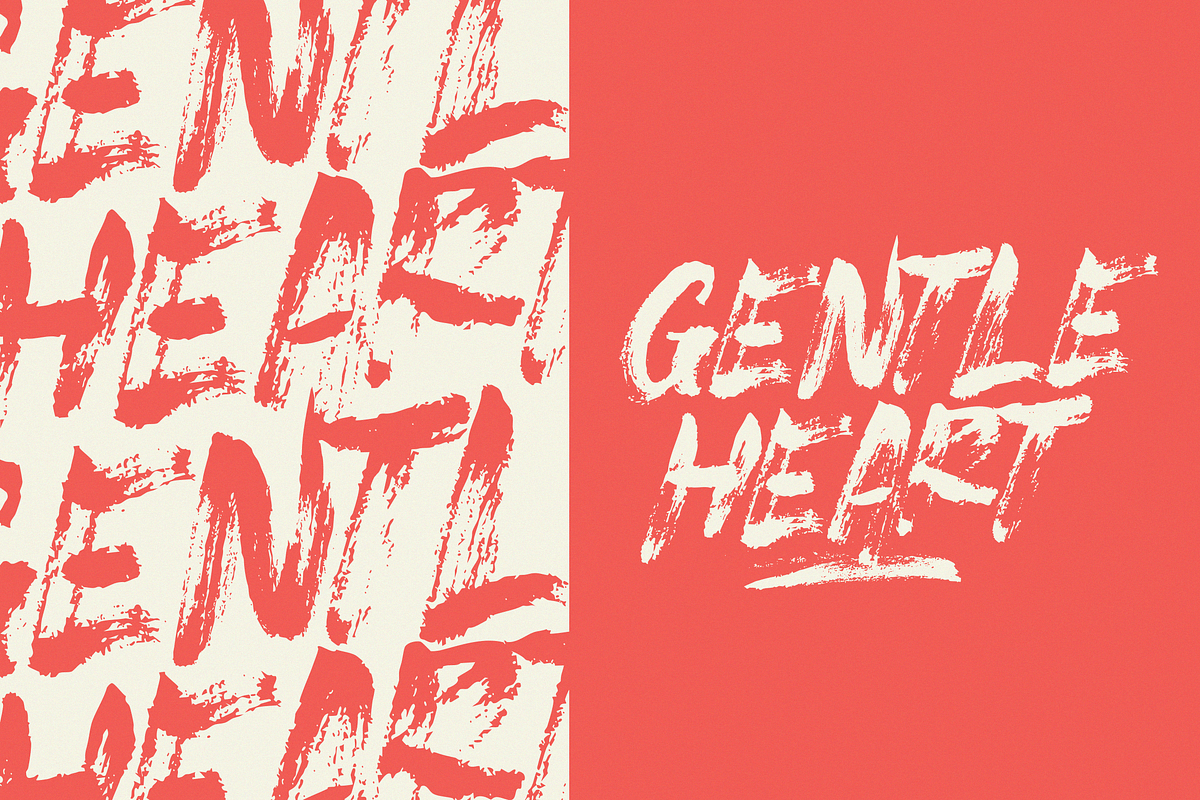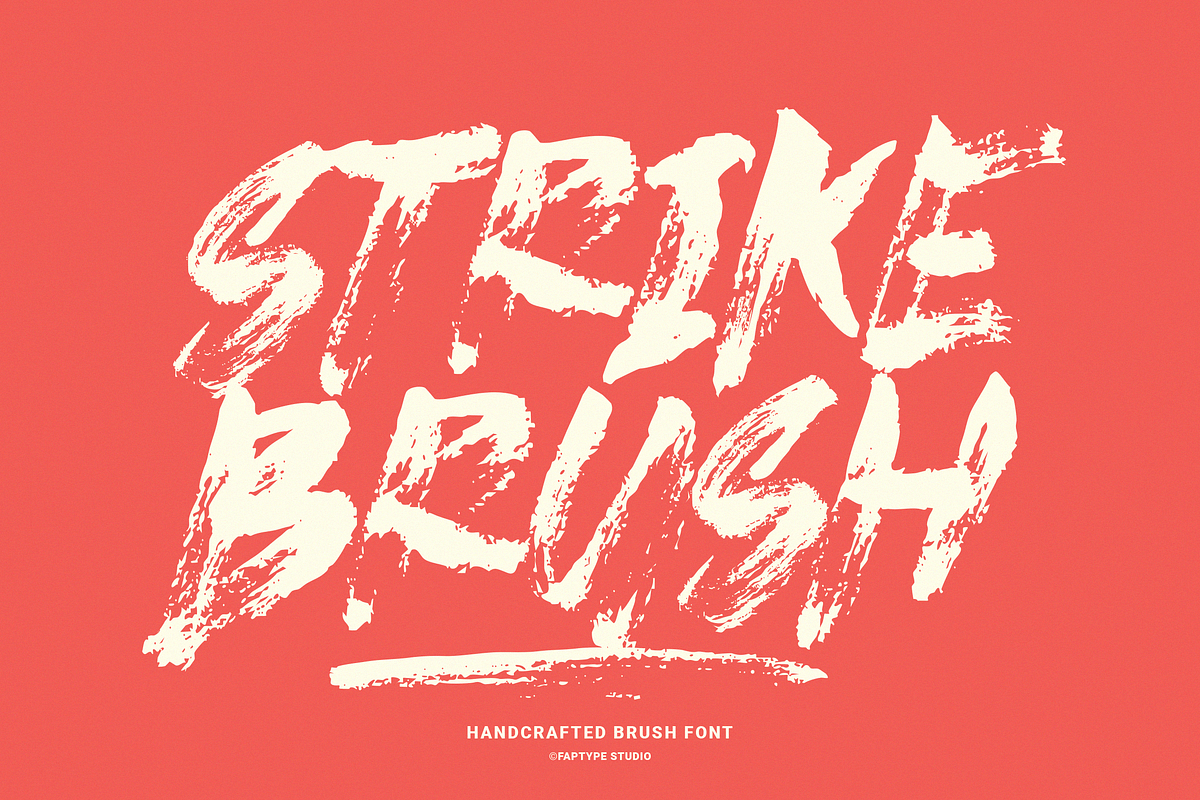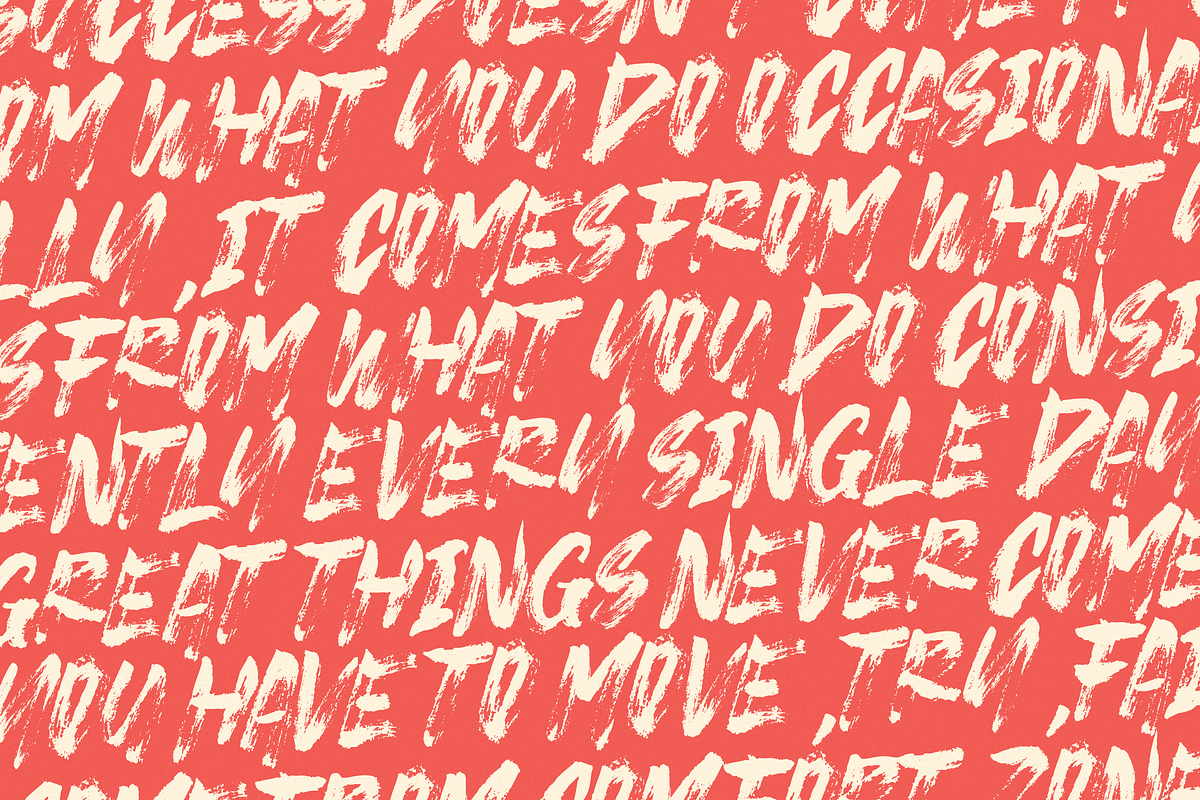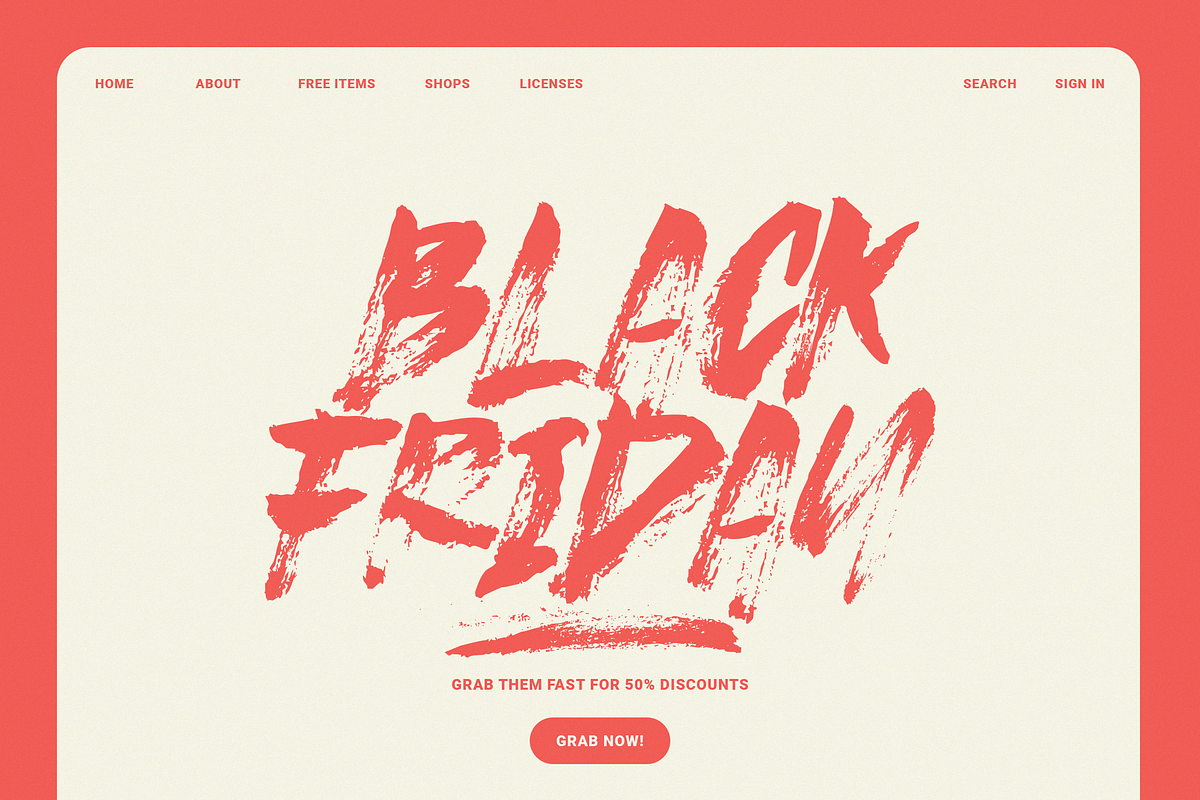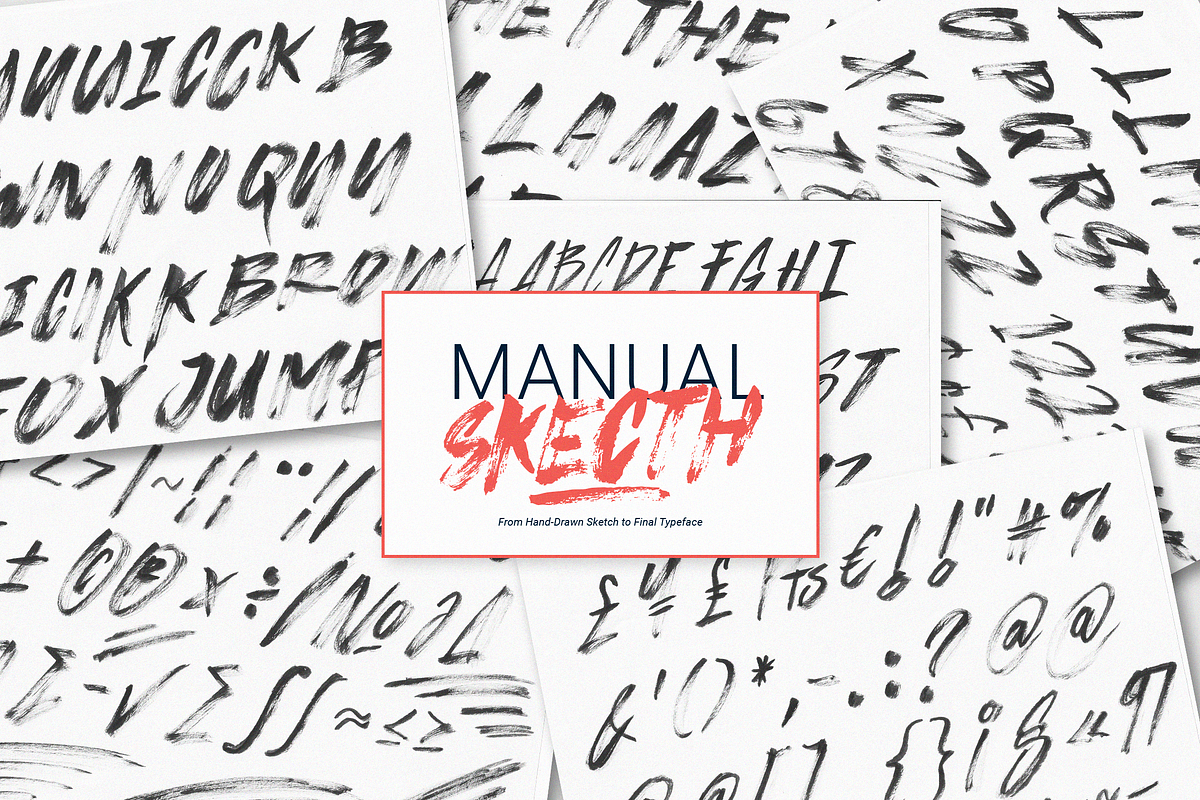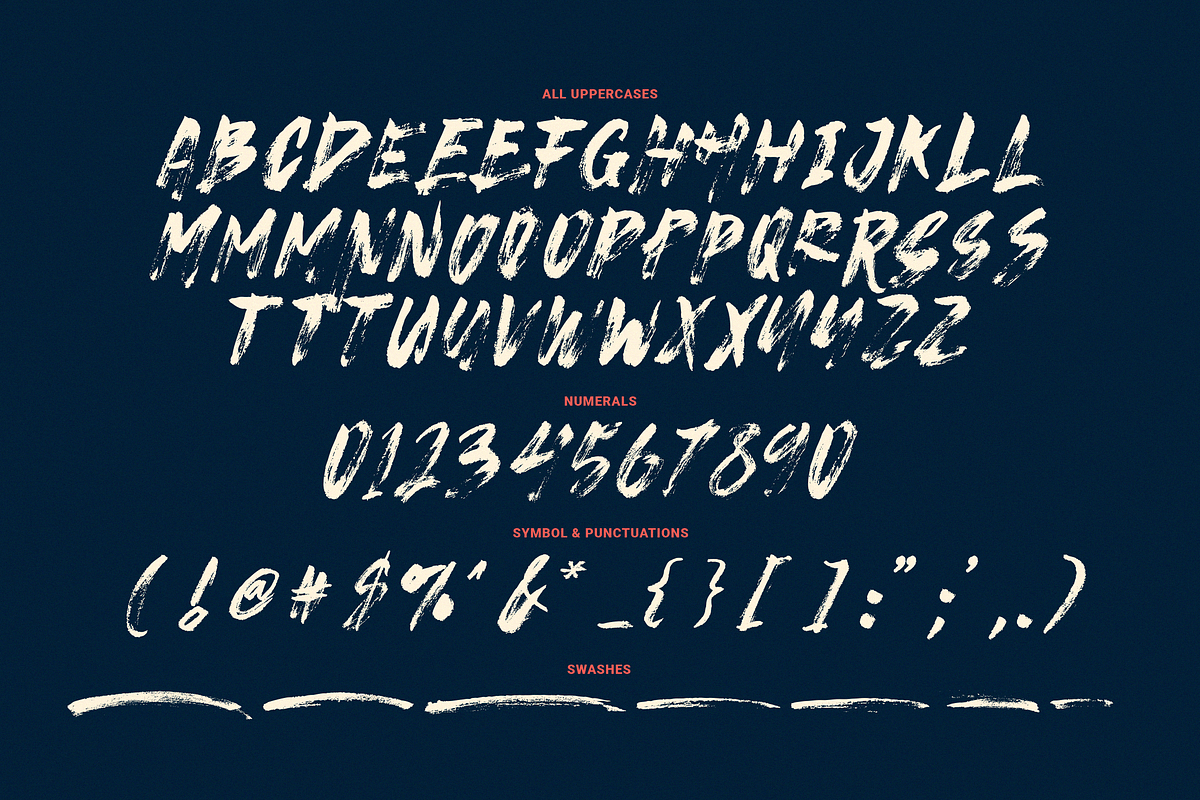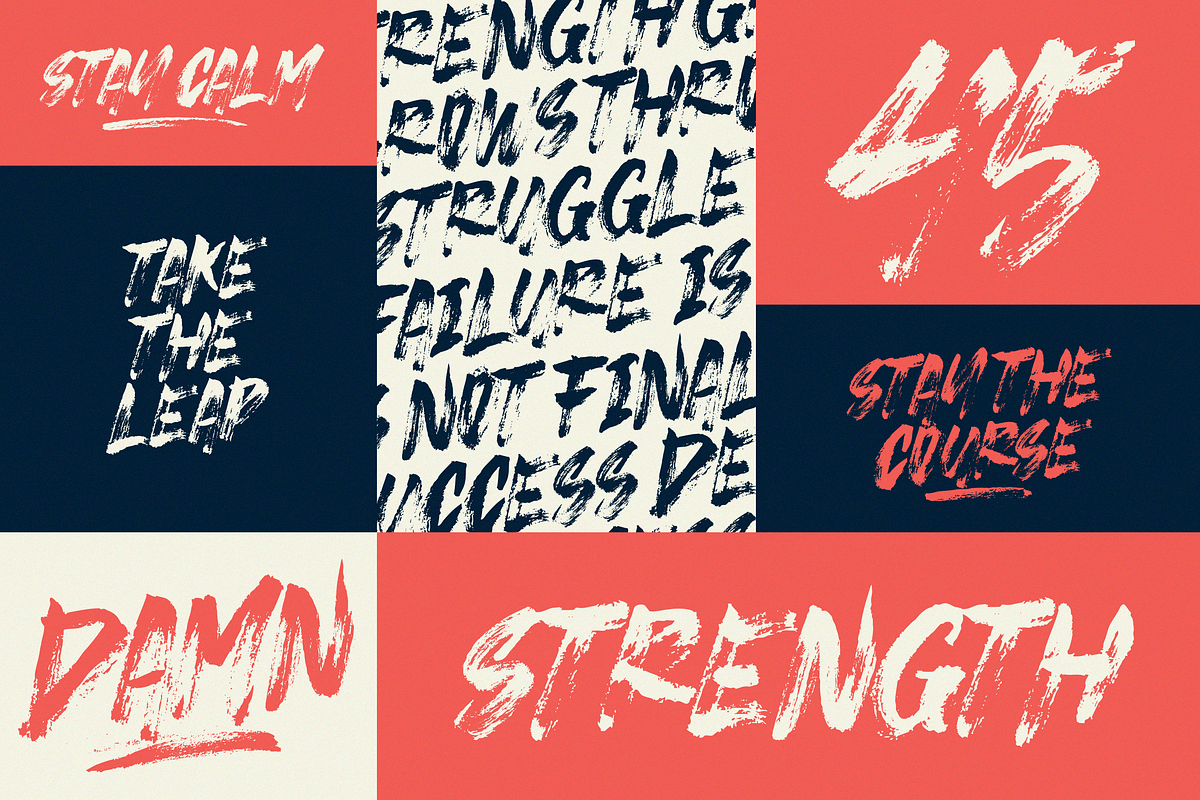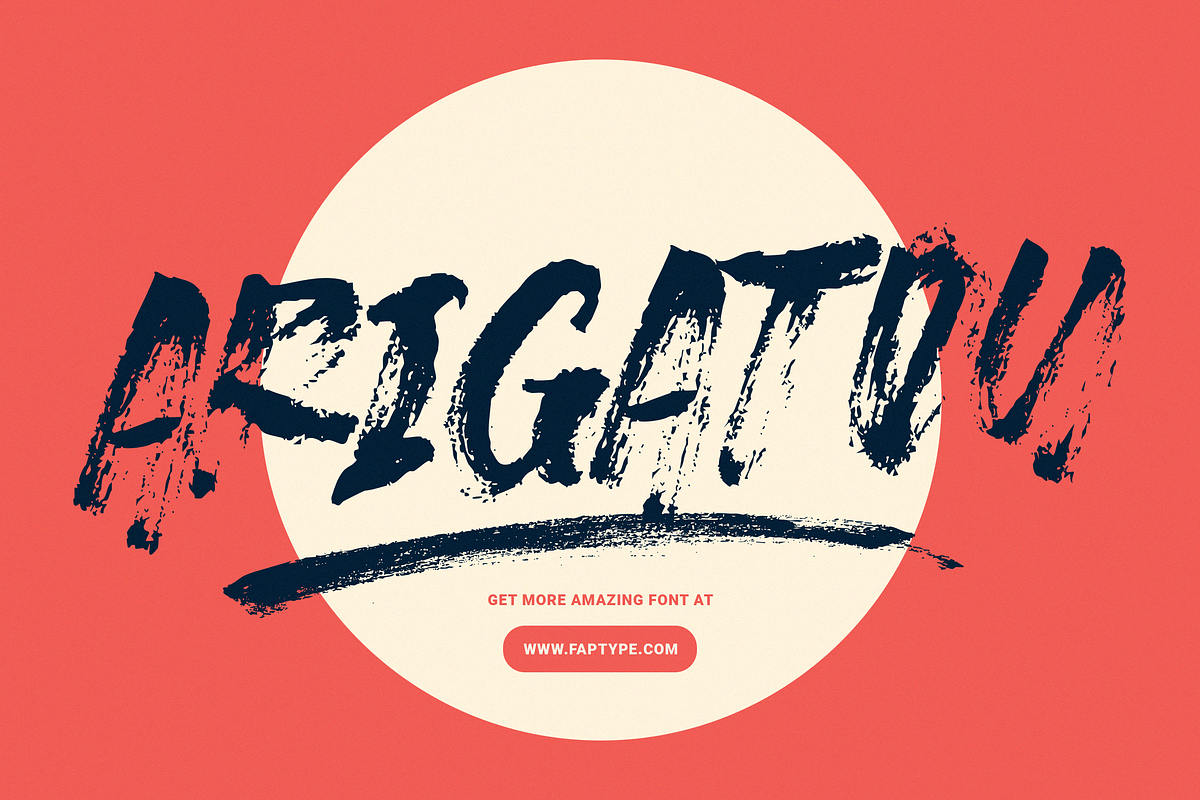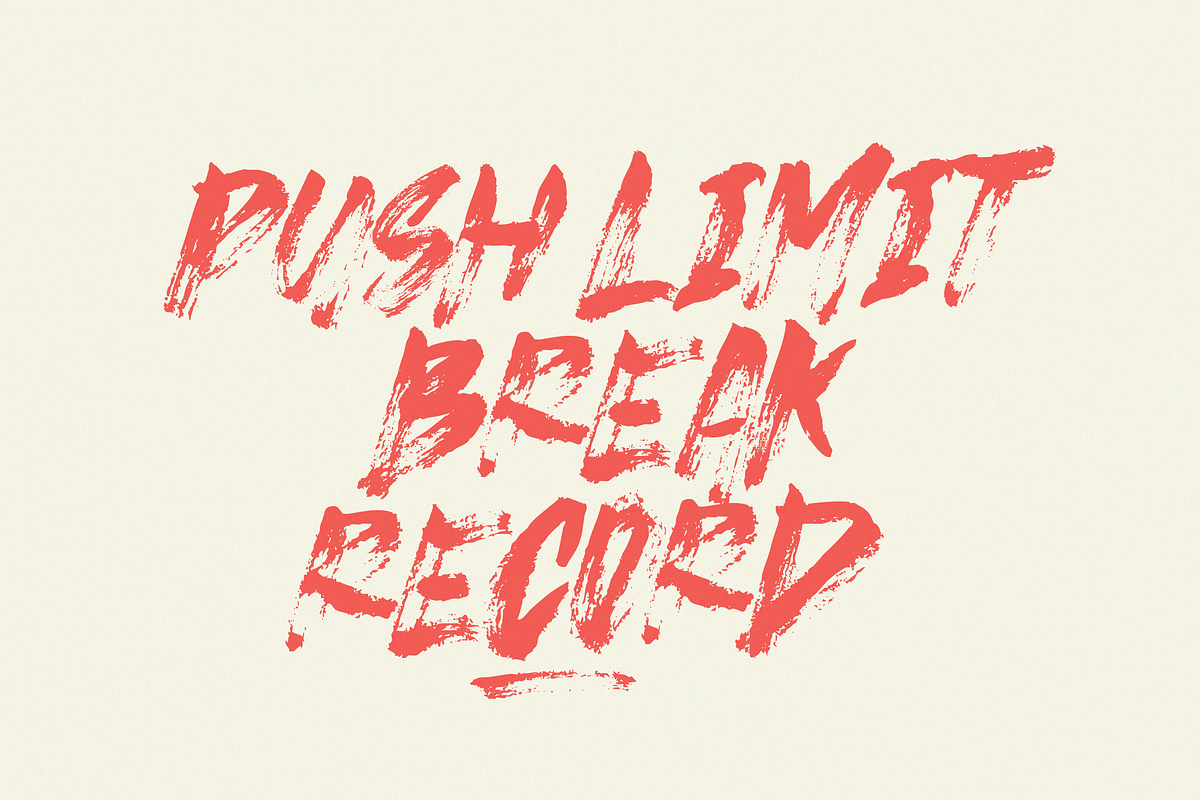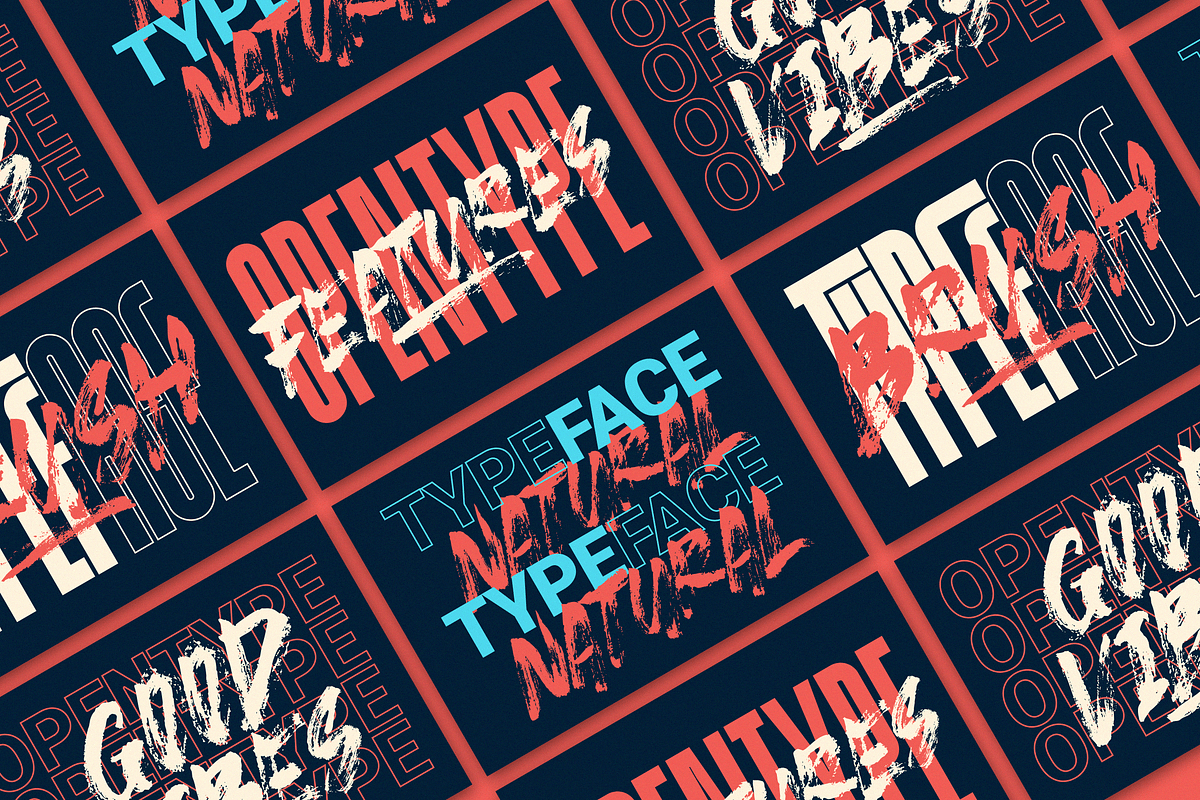
Strike Brush | Authentic Dry Brush
Strike Brush is a bold and expressive dry brush font, handcrafted with a real Kuretake brush pen. Every stroke was written by hand, then carefully scanned and digitized to preserve its raw, natural texture — delivering a truly authentic brush feel in every letter.
This font is perfect for creative projects that demand energy and character. Whether you're designing branding materials, t-shirt graphics, music merchandise, posters, or bold headlines, Strike Brush adds a handcrafted edge that stands out in any context.
The font includes uppercase letters with stylistic alternates, punctuation, symbols, dynamic swashes, and multilingual support. With its natural flow and powerful brush strokes, Strike Brush is ready to bring impact and personality to your next design.
Strike Brush Features:
- A full set of Uppercase and Lowercase
- Numbers and Punctuation
- Multilingual Language Support
- OpenType Features
- +270 Total Glyphs
- +37 Dry Brush Swashes included! (You can access the ornaments in Photoshop by navigating to Window Glyphs)